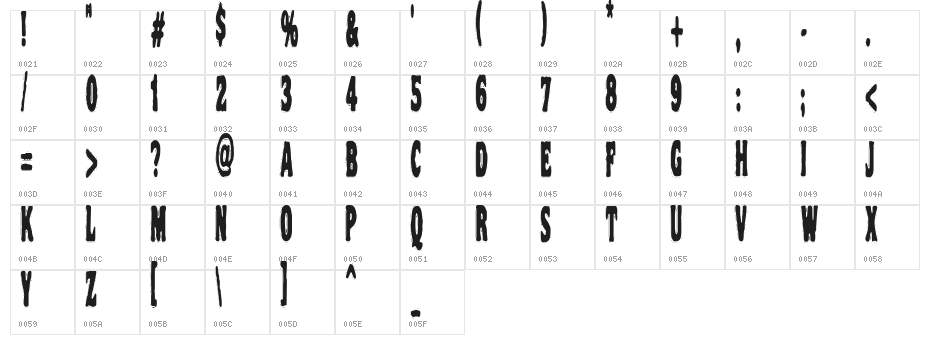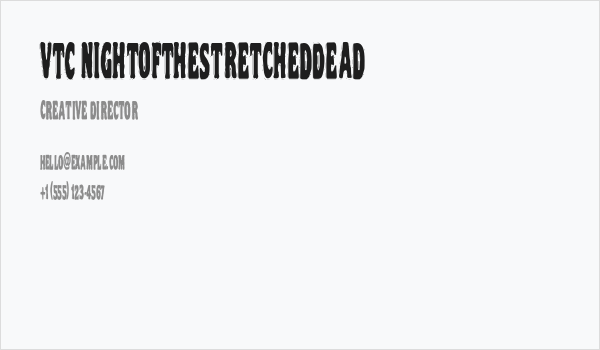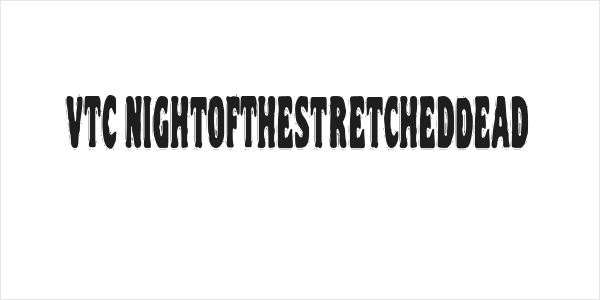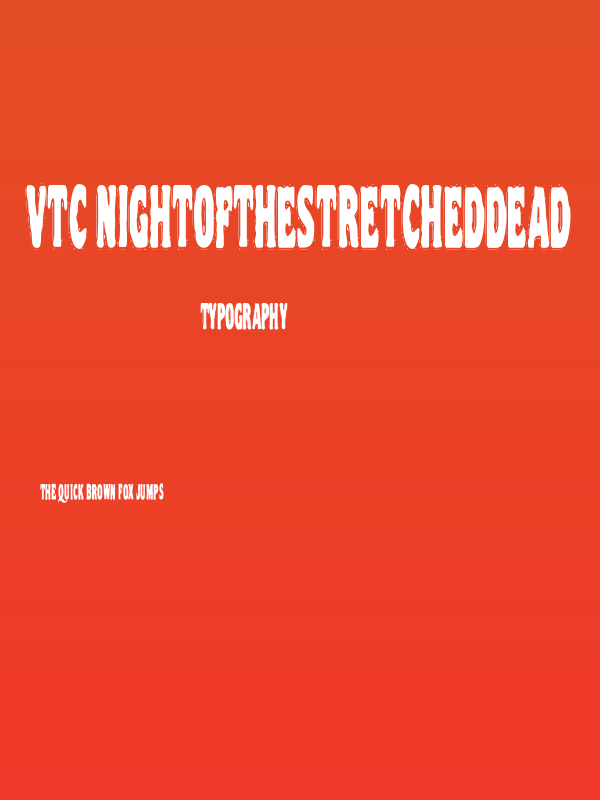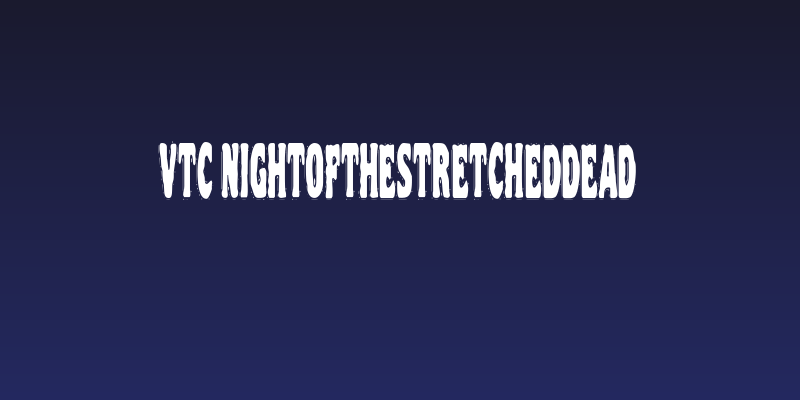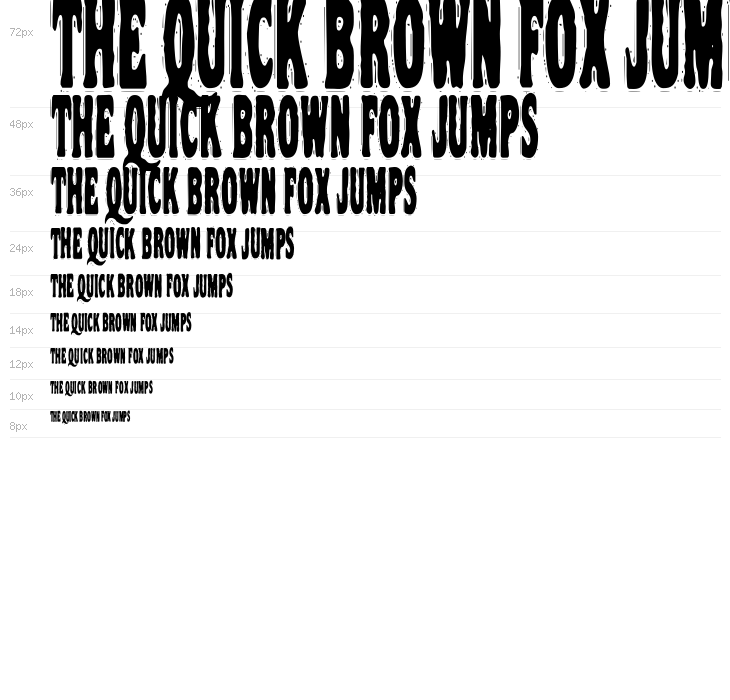
VTC NightOfTheStretchedDead Font
VTC NightOfTheStretchedDead Description
This font features a highly stylized, horror-themed design with elongated and distorted letterforms that evoke a sense of unease and mystery. The characters appear as if they are melting or dripping, adding to the eerie aesthetic. The uppercase and lowercase letters maintain a consistent style, with exaggerated vertical strokes and irregular edges. Numbers and special characters follow the same unsettling theme, making the font ideal for projects that require a spooky or dramatic effect. The overall appearance is bold and impactful, ensuring that any text set in this font will capture attention.
| Proposed Projects | Ideal for Halloween-themed posters, horror movie titles, haunted house flyers, and spooky event invitations. |